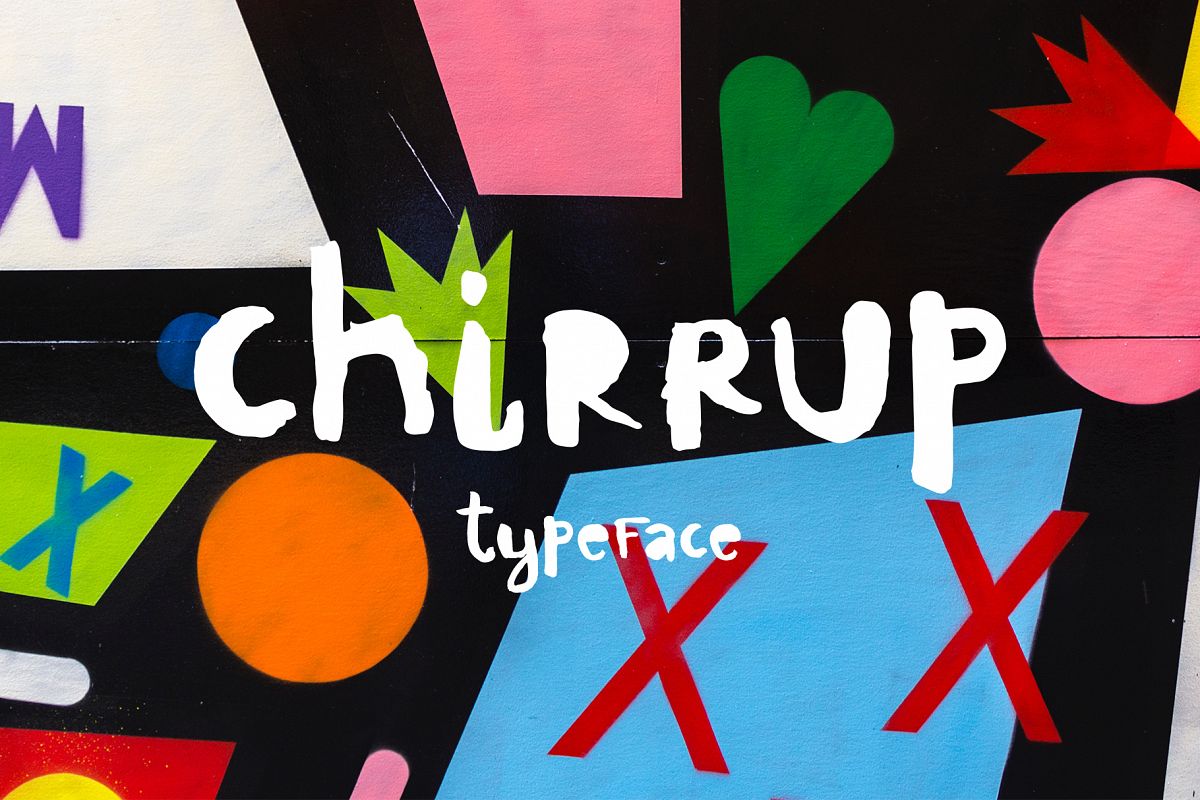
Chirrup Typeface - Hand Drawn Font
? Chirrup Typeface - hand drawn font! ?
This font is drawn manually. He is in a cheerful style, perfect for modern projects. He was painted with a brush and watercolors. This font is perfect for cards, prints, logos, wedding invitations, arrange illustration and decoration.
• It has upper and lower case letters, numbers, special characters, accents, alternates.